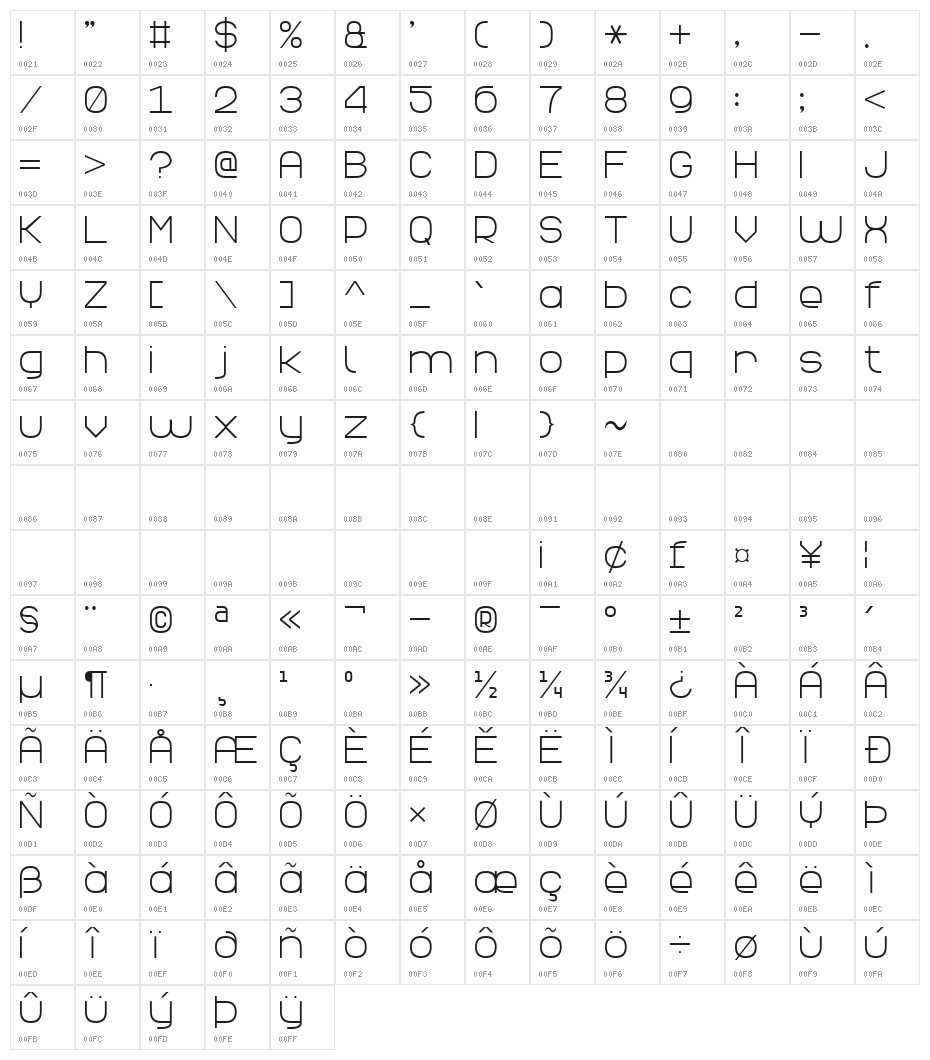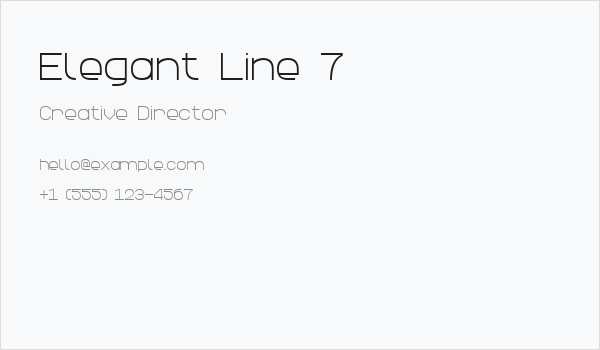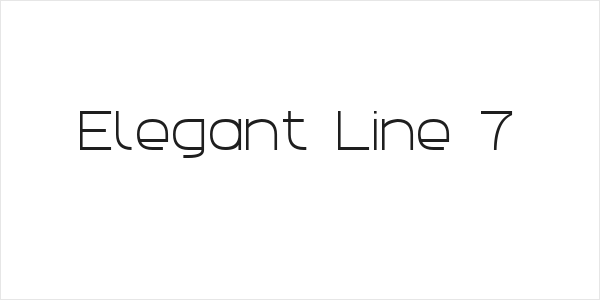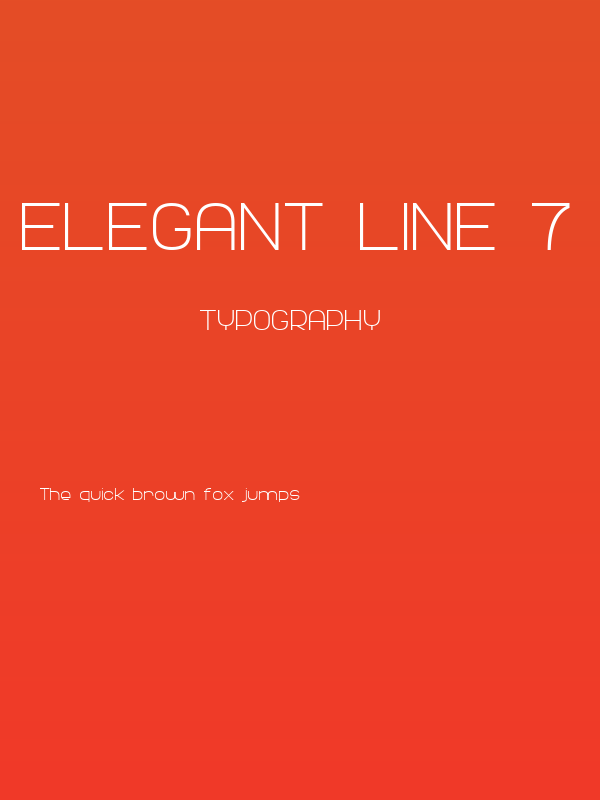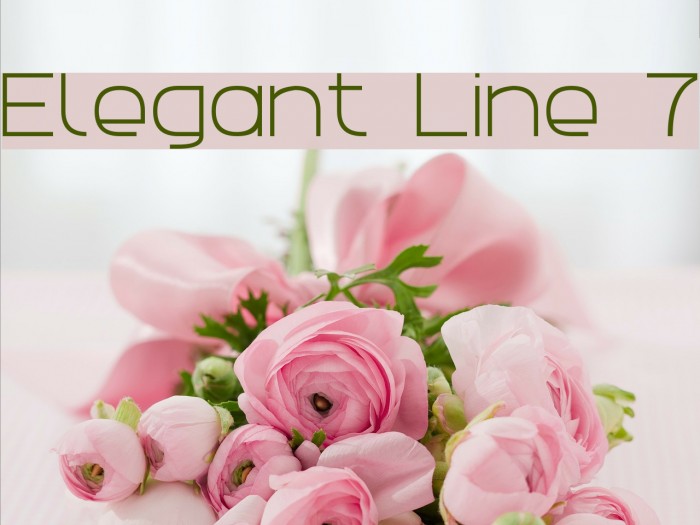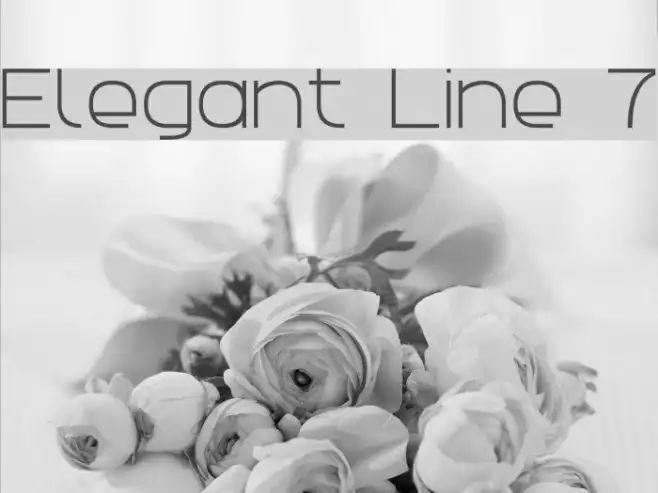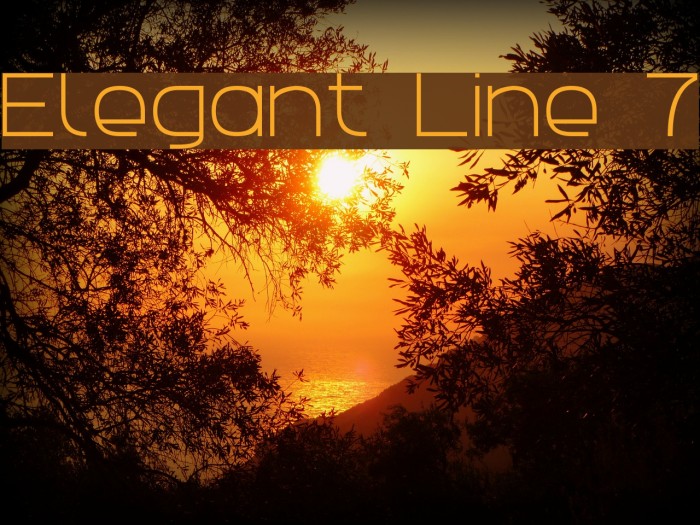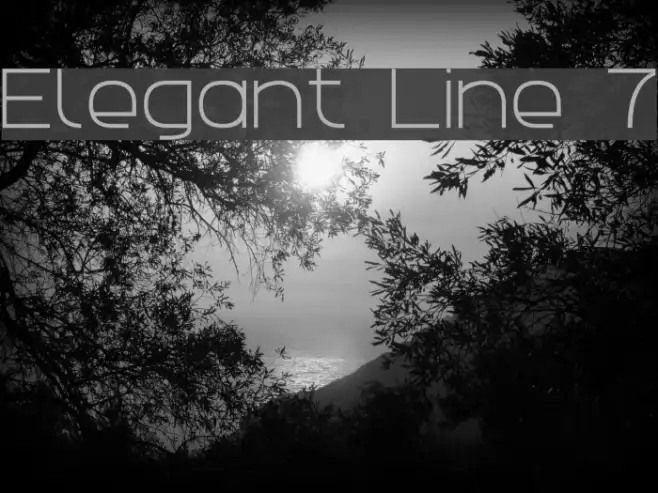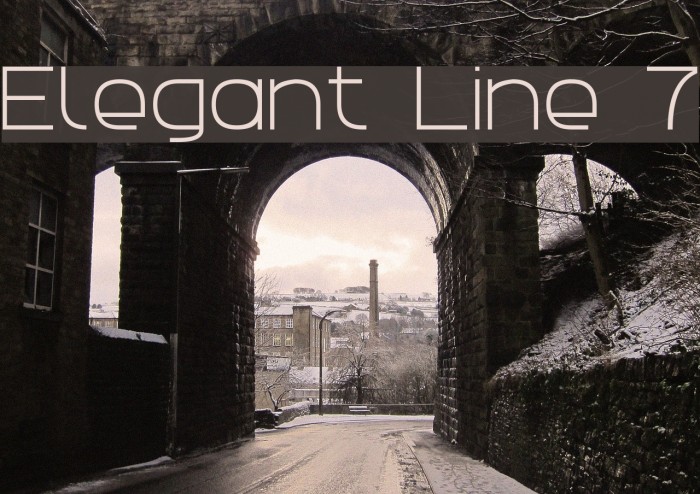
Elegant Line 7 Font
Elegant Line 7 Description
This font features a sleek, modern design with clean lines and a minimalist aesthetic. The characters are uniformly structured, offering a sense of balance and harmony. The uppercase letters have a geometric quality, while the lowercase letters maintain a consistent flow. The numerals are clear and easy to read, making them suitable for various applications. Special characters are designed with the same attention to detail, ensuring a cohesive look across all glyphs. This font's simplicity and elegance make it versatile for both digital and print media.
| Proposed Projects | Ideal for branding, web design, advertising, and editorial projects. |